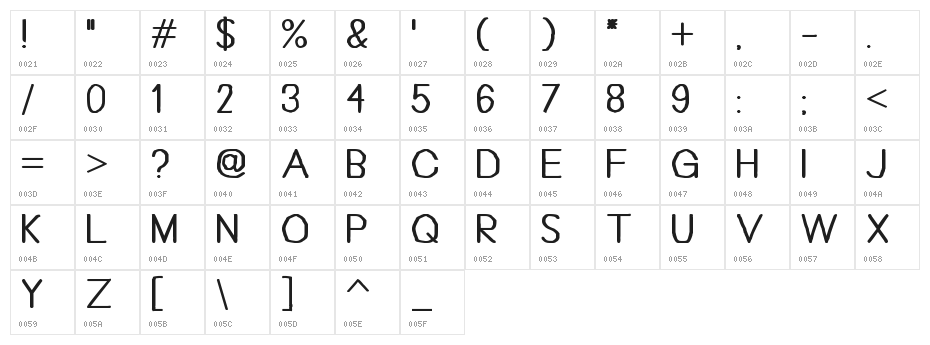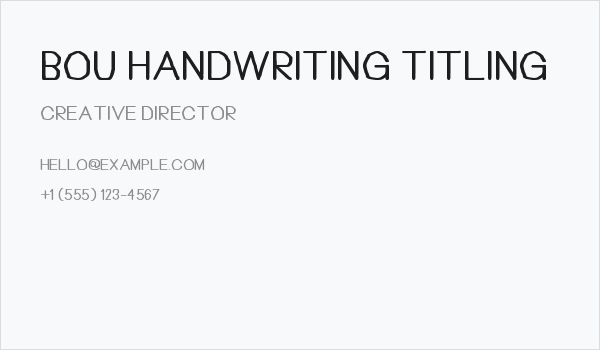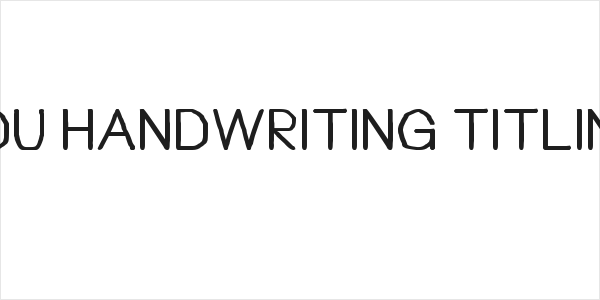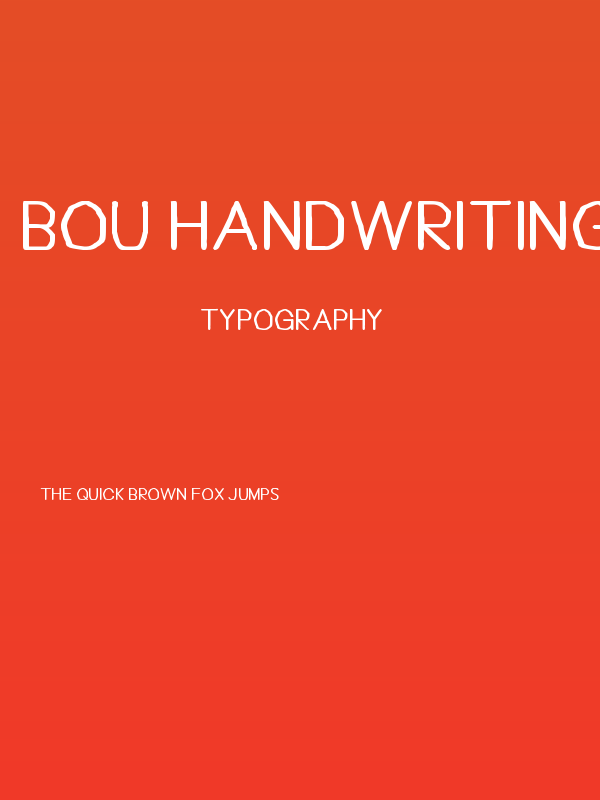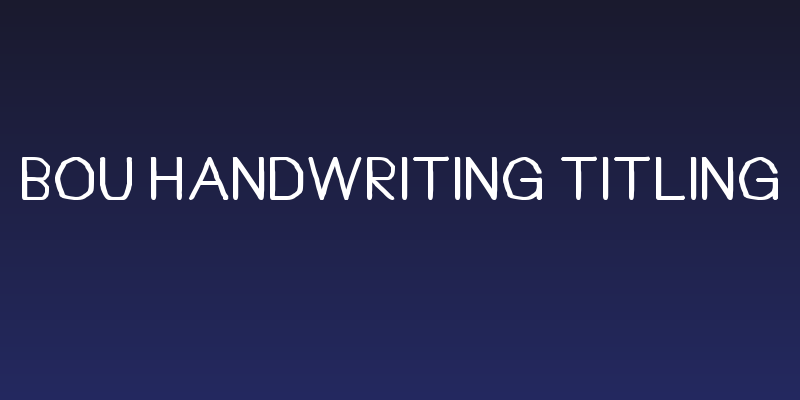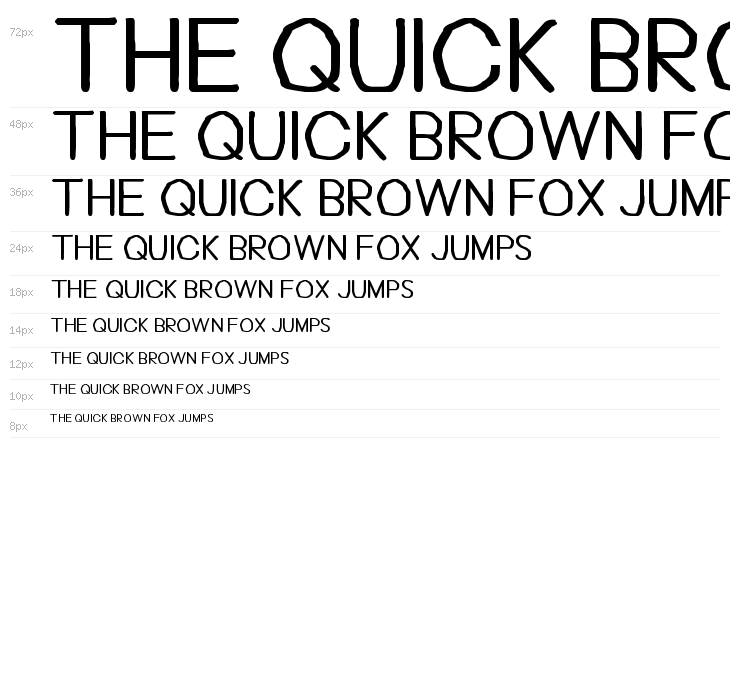
Bou Handwriting Titling Font
Bou Handwriting Titling Description
This font features a unique blend of geometric and organic elements, creating a modern yet approachable style. The uppercase letters are bold and structured, with clean lines and rounded edges that give them a friendly appearance. The lowercase letters maintain consistency with the uppercase, offering a harmonious flow. The numerals are distinct and easy to read, with a slightly playful touch. Special characters are well-integrated, maintaining the overall aesthetic. This font is versatile, suitable for both digital and print media, and can be used to add a personal touch to any project.
| Proposed Projects | Ideal for branding, advertising, packaging, and editorial design. |